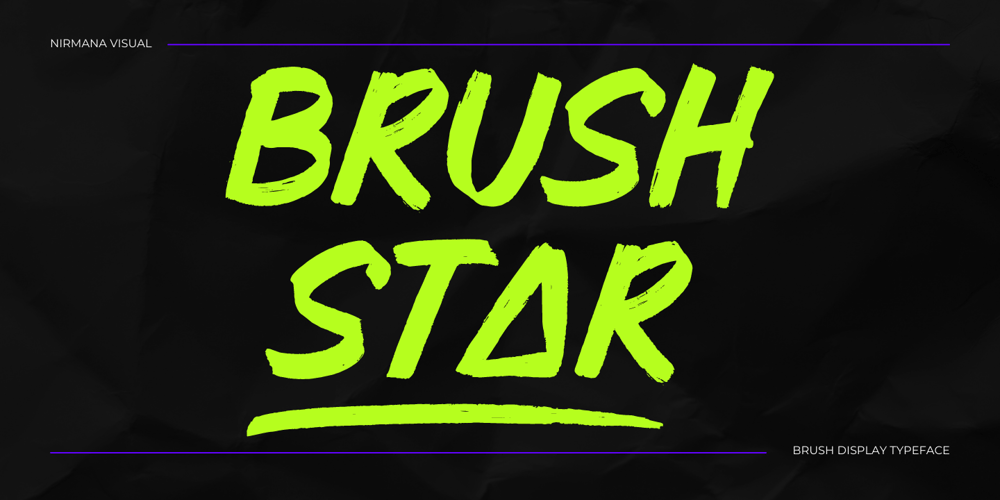
Brush Star Font Family was designed by Sigit Dwipa and published by Nirmana Visual. Brush Star contains 2 styles and family package options. Brush Squad is a Dry Brush Handwritten typeface, full set of lowercase and uppercase letters, numerals and punctuation, multilingual symbols.Very suitable for the title, logo, typography, clothes, magazines, brochures, packaging and much more for your design needs, making your designs more modern and professional.